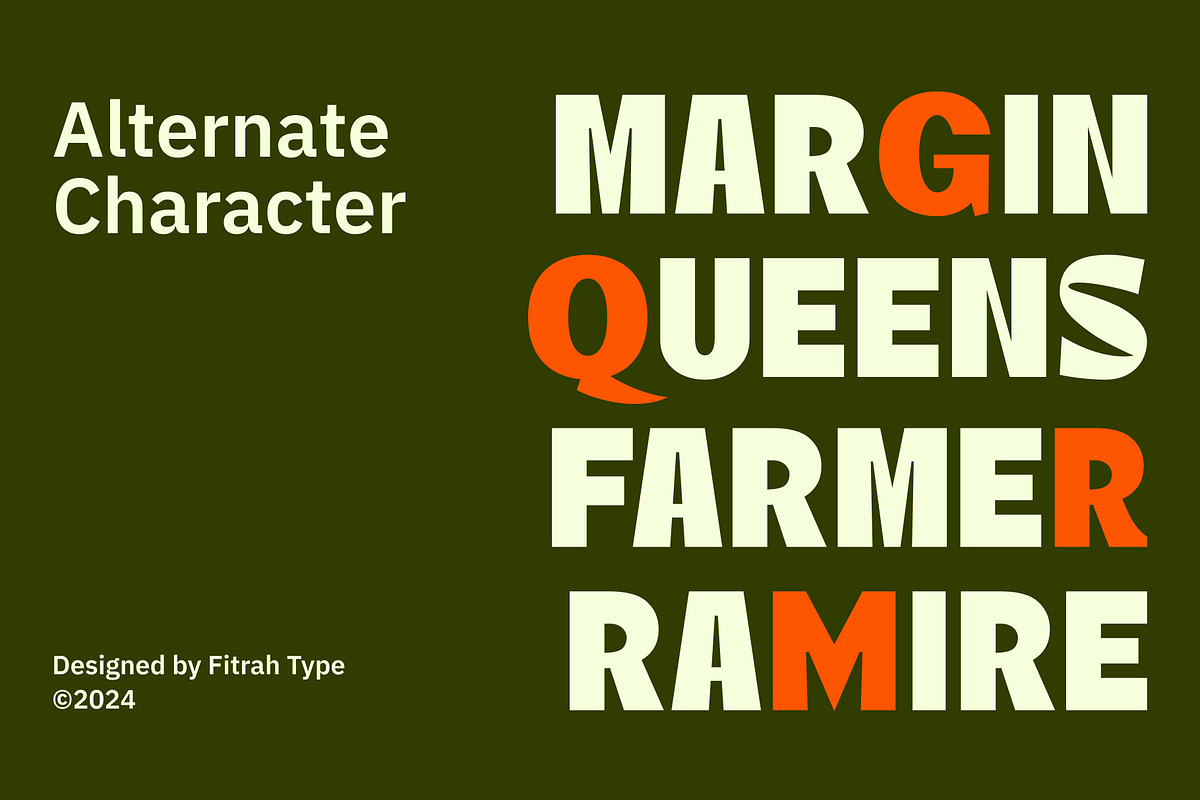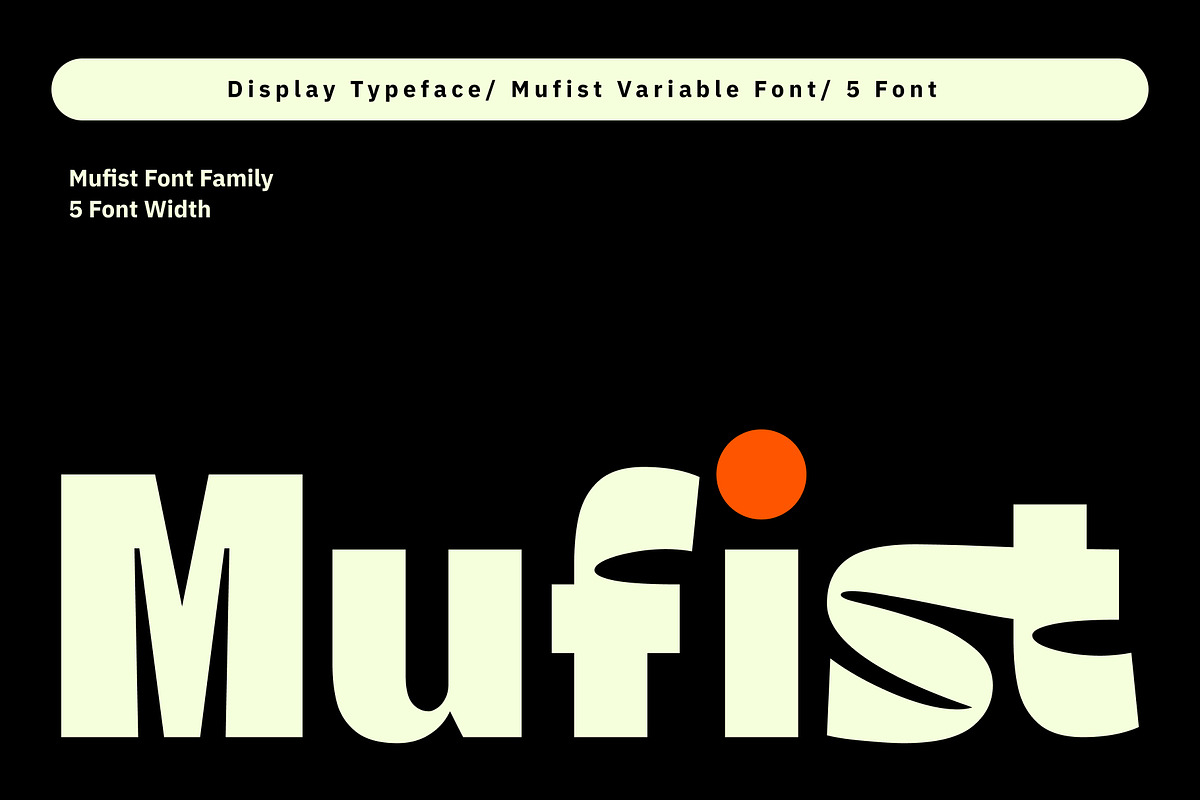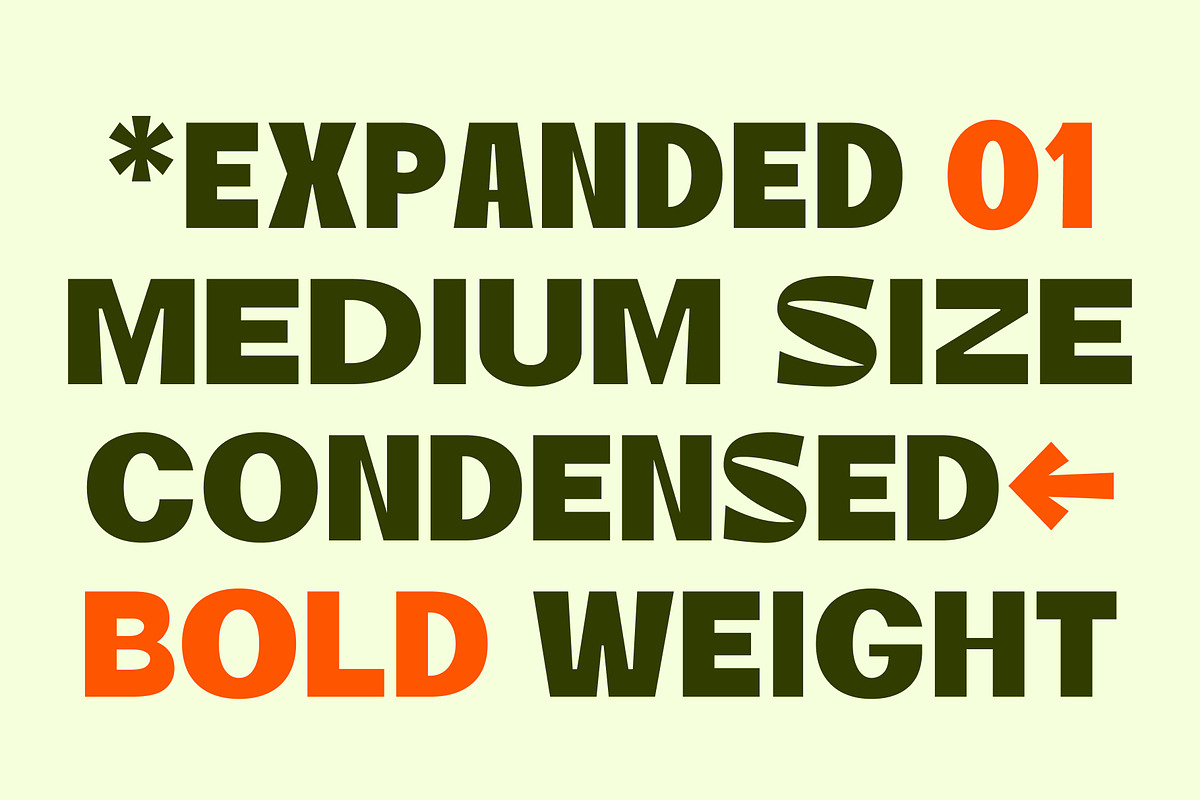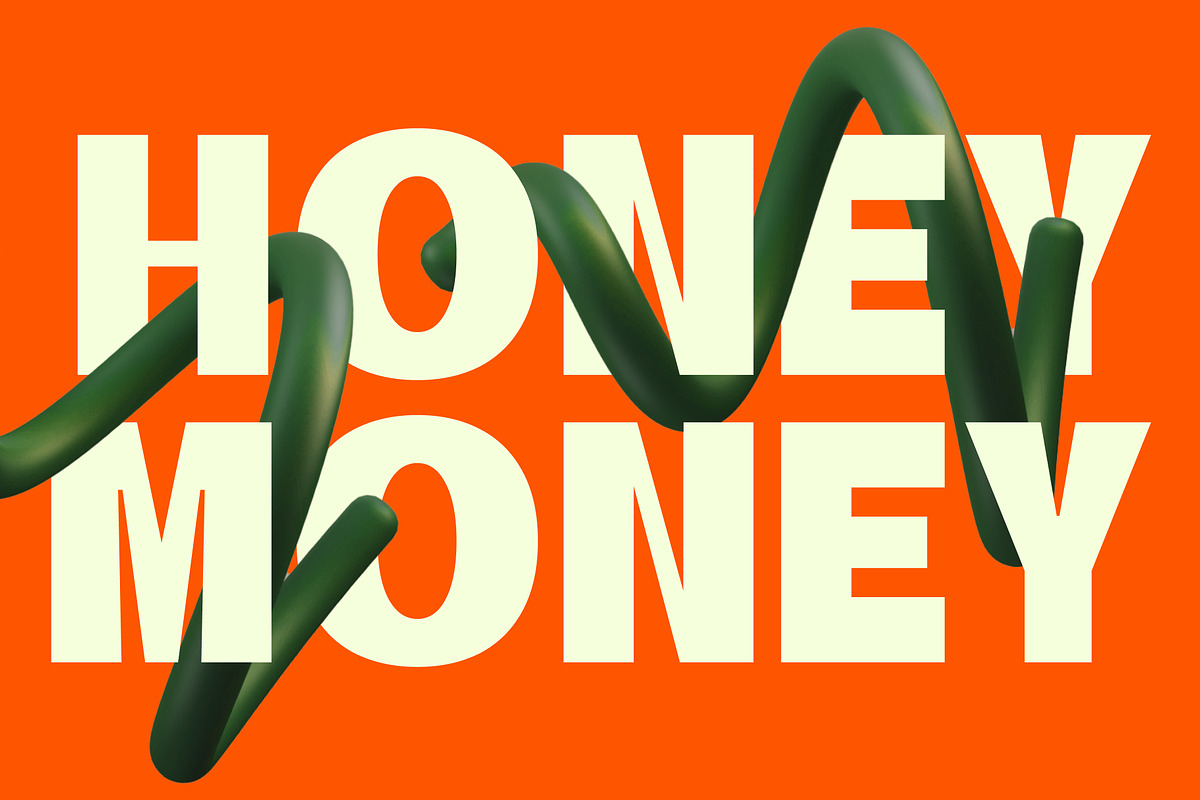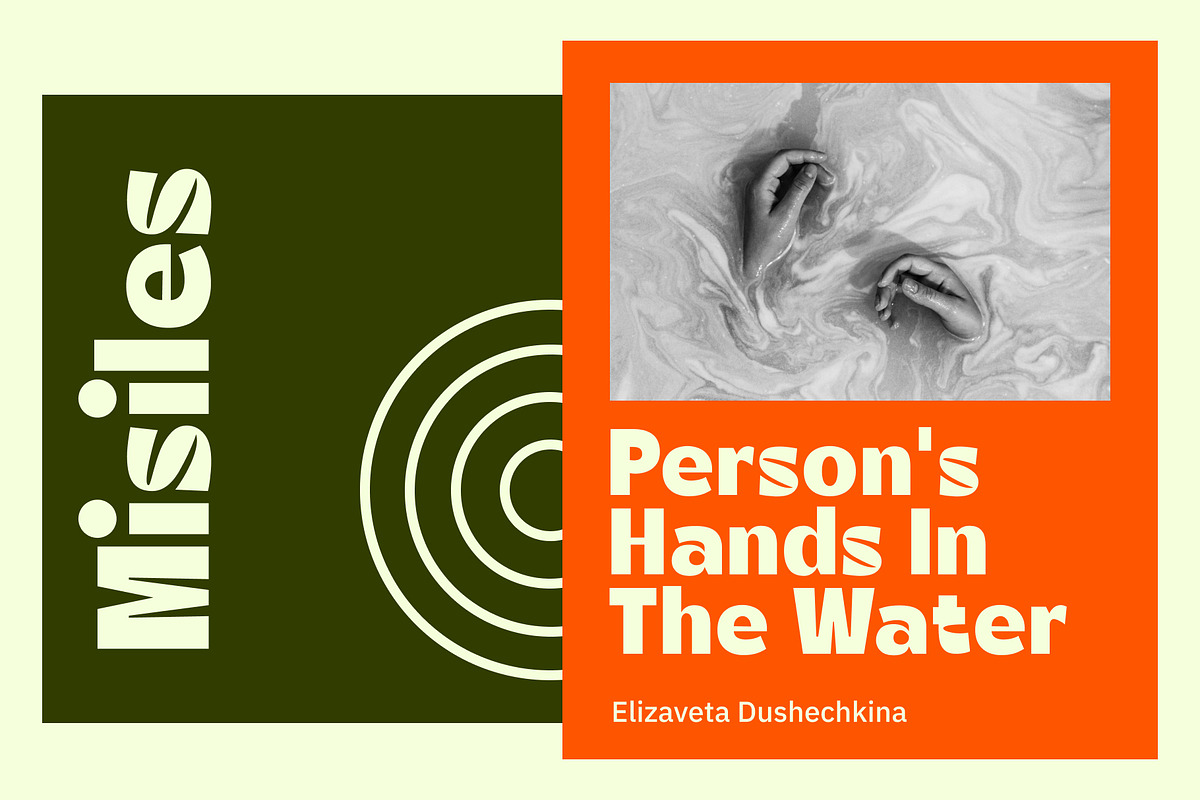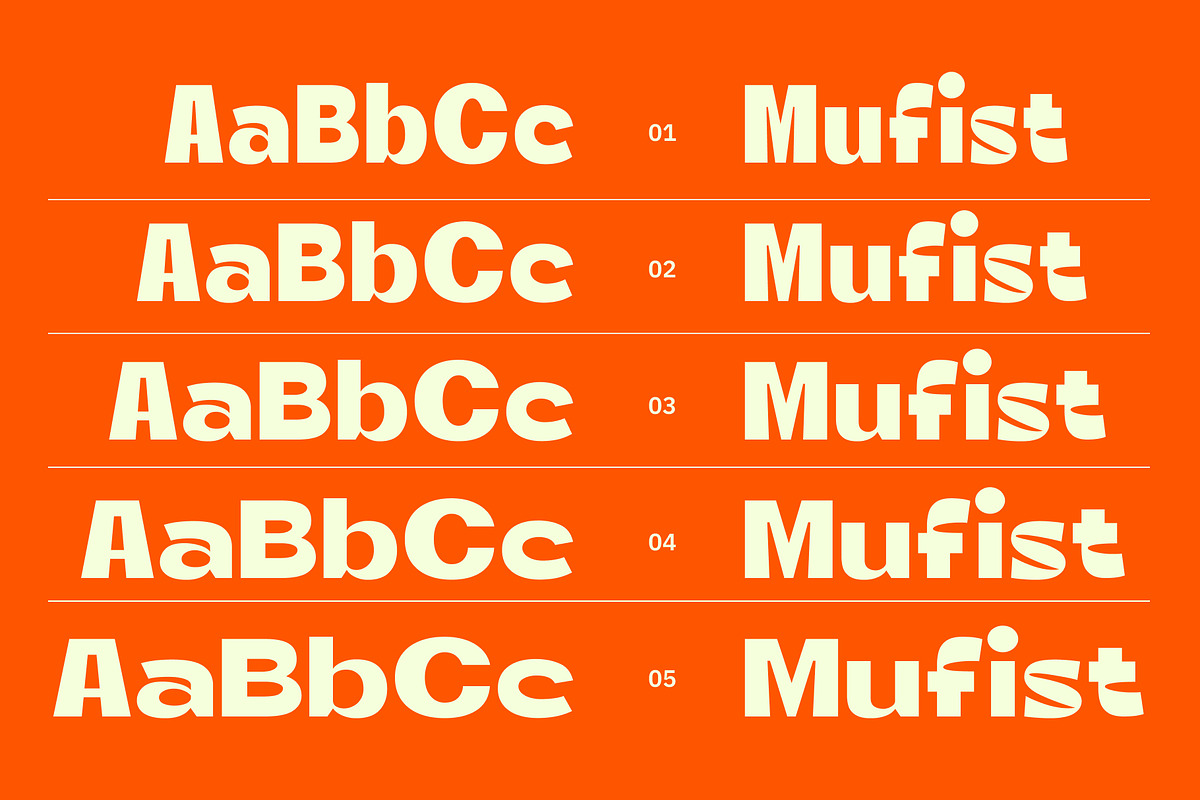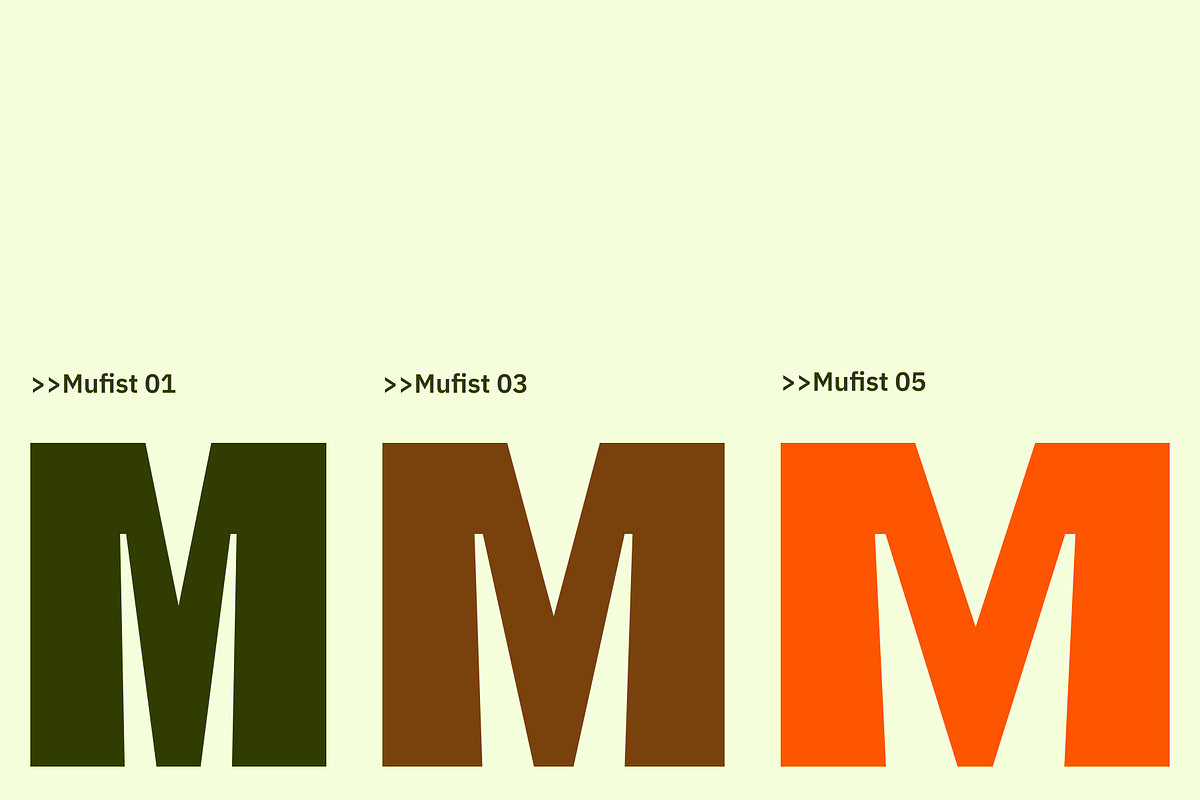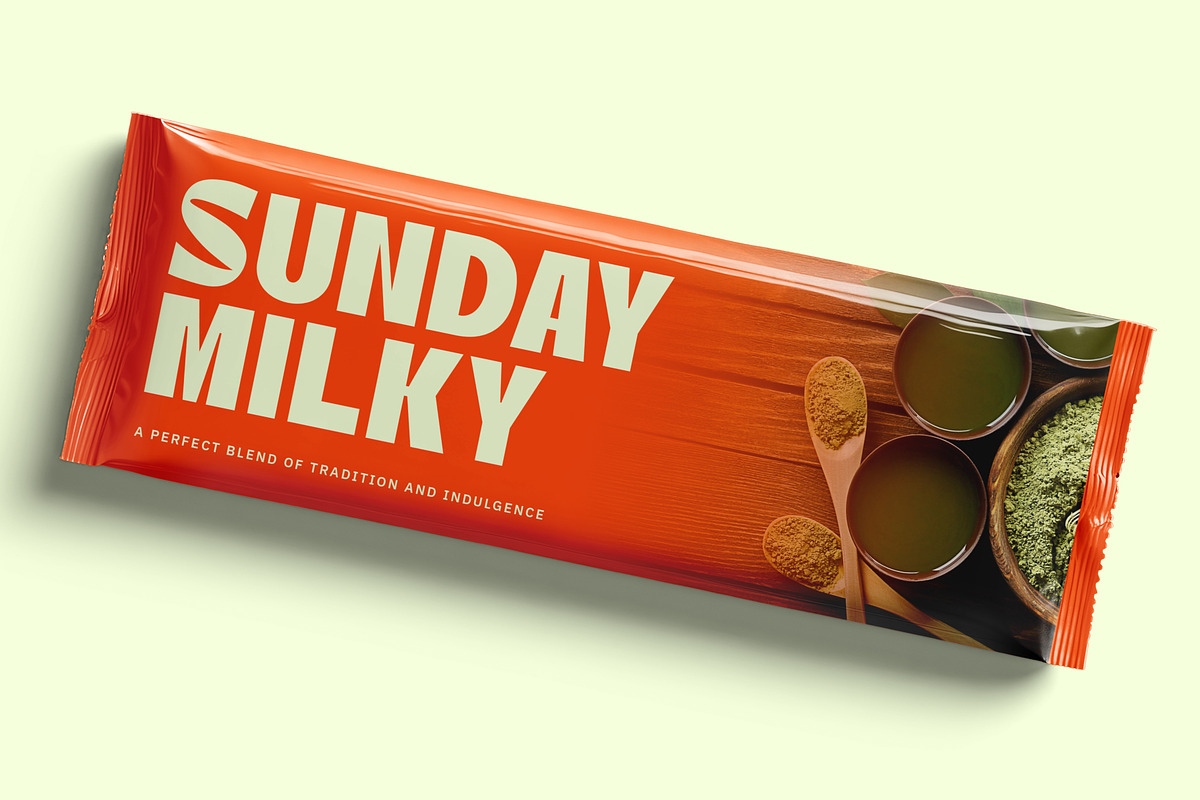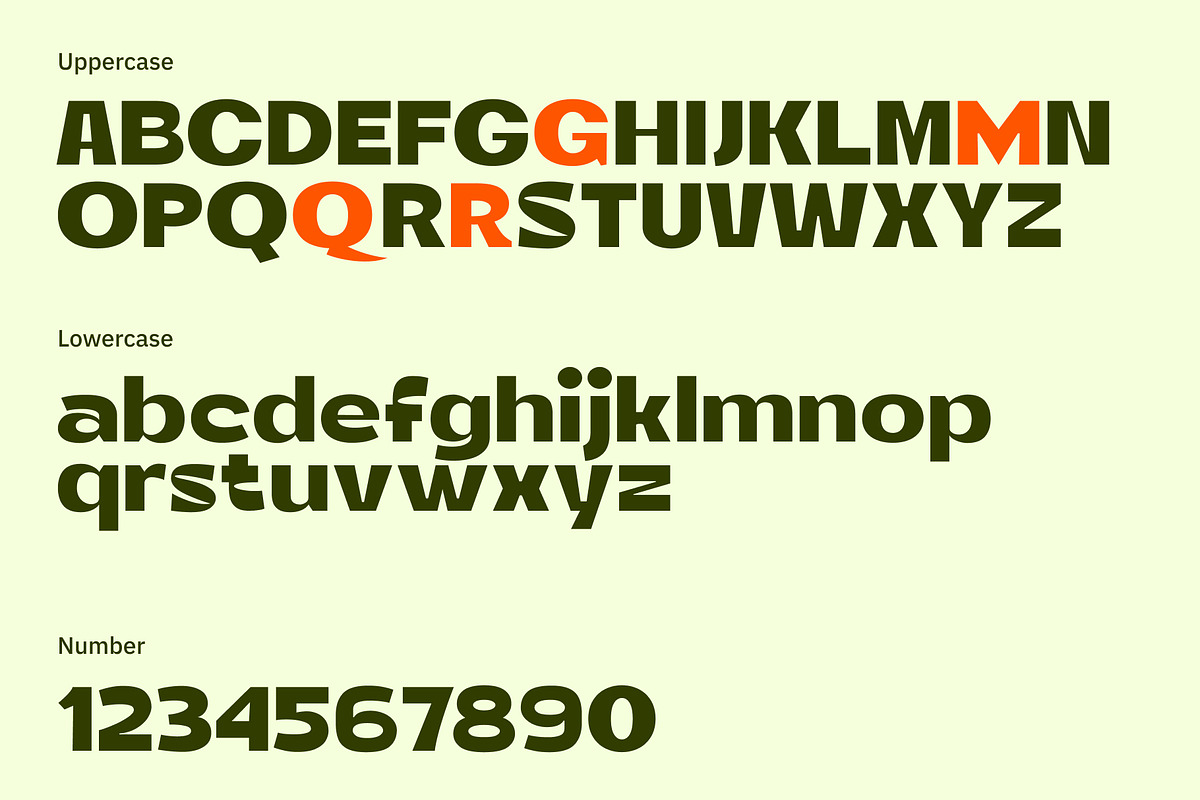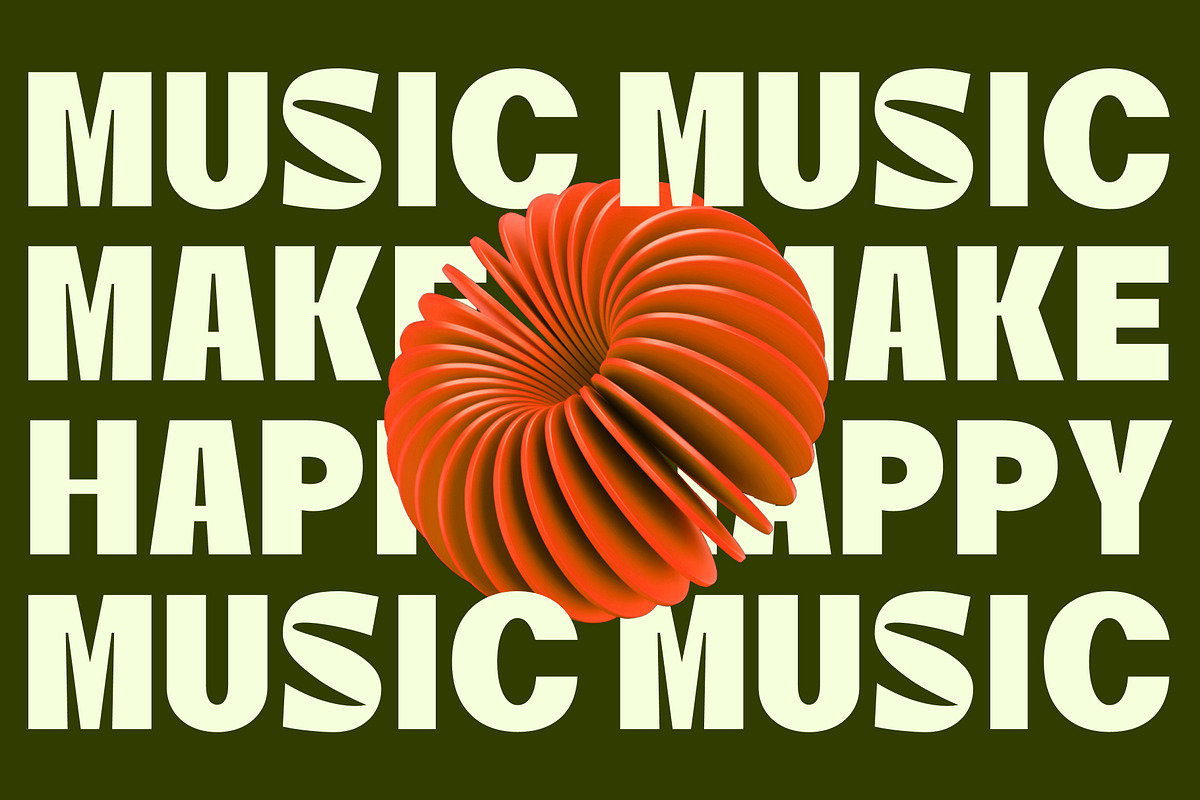
Mufist Complete Family
Mufist is a distinctive typeface that beautifully blends modernity with trendiness . Mufist offers versatility for various design needs. Its minimalist approach ensures simplicity while maintaining a striking visual appeal. The entire typography has been designed to work on large sizes.This Mufist typeface is available in 5 widths.
This font ideal for designing merchandise, social media, marketing posts, product packaging & branding projects. Mufist supports uppercase, lowercase, numerals and punctuation.